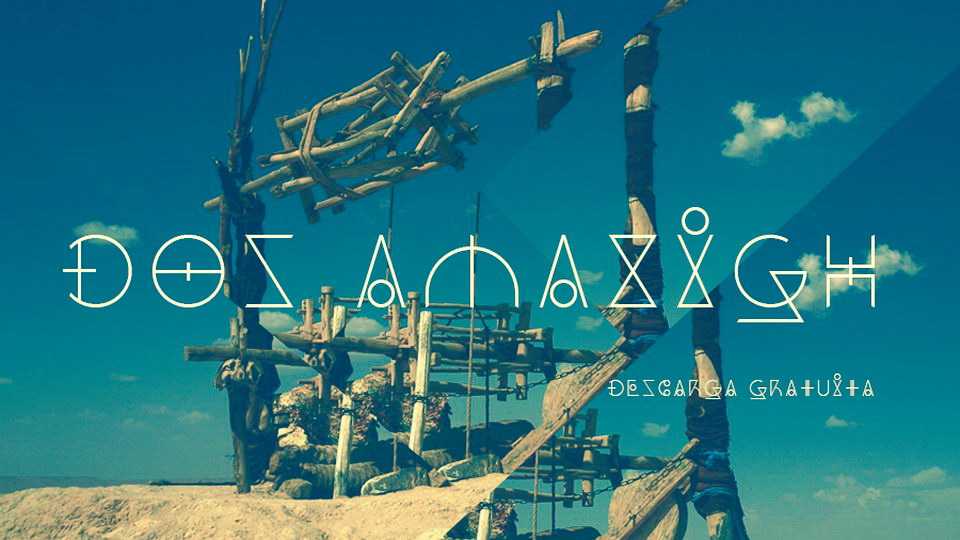
Download Dos Amazigh font, a futuristic geometric typeface with a unique look. Dos Amazigh font fits perfect for logo, branding, posters, covers and other artworks.
Designer: DOS BCN Studio